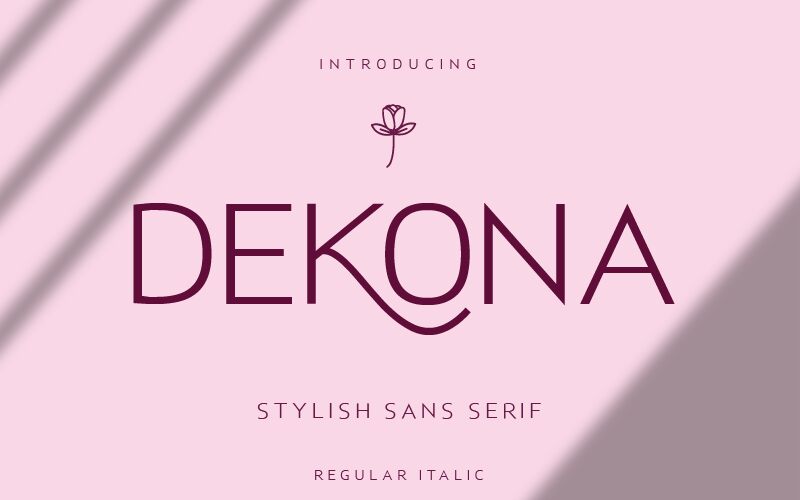
Dekona font is a modern, light-weight sans serif by Iqbal Pauji whose simplified geometric style makes a lasting impression. A minimalist style is achieved thanks to an optimal combination of clean and precise lines which feels sophisticated and stylish. Such degree of sophistication makes the font pretty universal and quite capable for any design project that might be in need of interesting typography.
Dekona
Iqbal Pauji